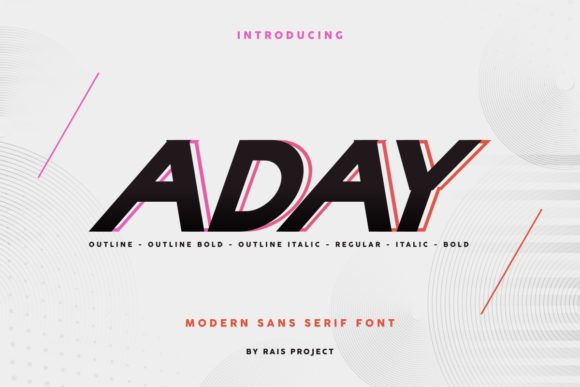
Unleash the power of Aday Font, the sleek and stylish Sans Serif display font that adds a touch of contemporary sophistication to your creative endeavors. Designed by RaisProject, this remarkable font boasts six distinct styles, each meticulously crafted to elevate your projects to new heights.
Aday Font is the epitome of versatility, seamlessly adapting to a myriad of design concepts. Whether you're composing captivating headlines, promoting upcoming events, building a distinctive brand identity, or crafting eye-catching advertisements, Aday Font is your ultimate choice. Its clean lines and modern aesthetics effortlessly enhance magazines, signage, invitations, stationery, social media posts, labels, and any project that demands a unique and robust style.
With Aday Font at your fingertips, discover the boundless possibilities of creative expression. Its captivating characters exude a sense of elegance and charm, leaving a lasting impression on your audience. Embrace the allure of Aday Font and embark on a design journey that knows no limits.